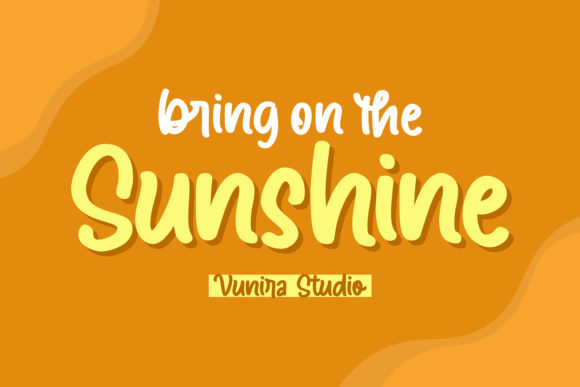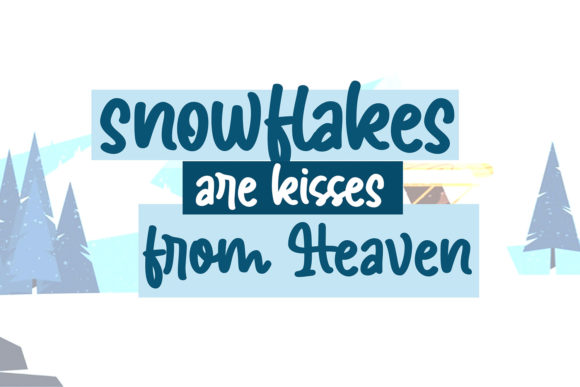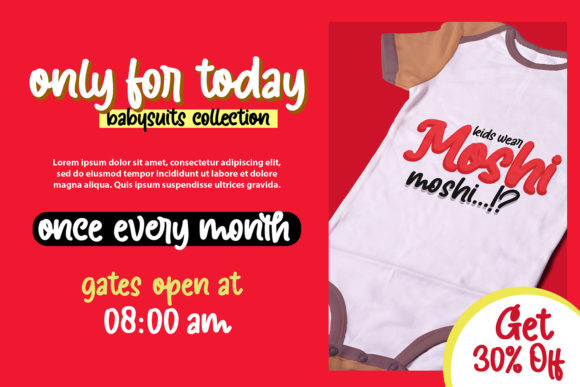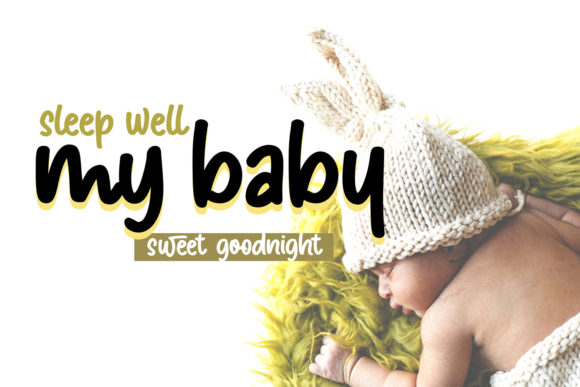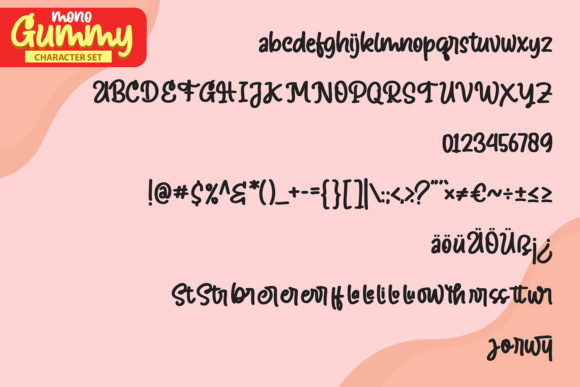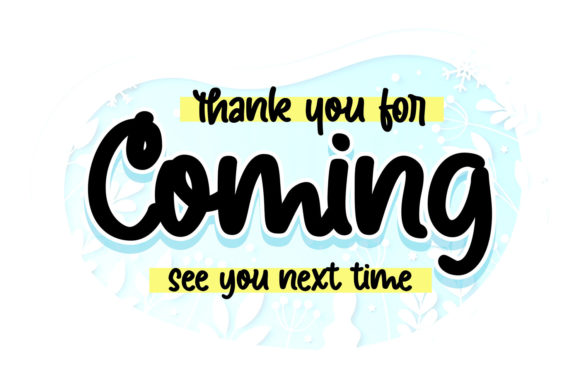
Introduction to Mono Gummy Font
Do you remember that moment when a simple design element brought your entire creative project to life? For me, it was the discovery of the Mono Gummy Font. Its playful, hand-painted style instantly added a touch of warmth and personality to my designs, making them feel more approachable and engaging.
As a designer, I know how crucial it is to have high-quality design resources at our fingertips. That’s why I’m excited to share with you the wonders of the Mono Gummy Font. With its transparent background and free download option, this font is a valuable addition to any designer’s toolkit. Whether you’re working on a children’s game, a cartoon-related design, or simply need a lovely touch for your next project, the Mono Gummy Font is an amazing choice.
So, let’s dive into the world of this delightful font and explore what makes it a standout design resource.
Key Features of Mono Gummy Font
- High-quality design resource suitable for various creative projects
- Unique, bold font style with a transparent background, perfect for modern designs
- Supports a wide range of languages and characters
- Designed with a high resolution (300 DPI) for optimal print quality
- Perfect for logos, branding, and other design elements that require a distinctive look
Honest Review: Mono Gummy Font
I recently stumbled upon the Mono Gummy Font, and I must say it’s a great addition to any designer’s toolkit. As a design resource, it’s perfect for creating unique and playful visuals for your creative projects.
- High-quality glyphs that are crisp and clear
- Transparent background, allowing for easy integration with other design elements
- Wide range of language support, making it a versatile font
- ⚠️ Limited customization options, which may not be ideal for designers who like to fine-tune their fonts
- ⚠️ Not suitable for formal or professional designs, due to its playful and whimsical nature
Overall, the Mono Gummy Font is a great choice for designers who want to add a bit of fun and personality to their projects. It’s a high-quality font that’s perfect for creating eye-catching visuals, and its transparent background makes it easy to work with. While it may have some limitations, it’s definitely a valuable addition to any design library.
The Mono Gummy Font is a high-quality, free download design resource ideal for creative projects that require a unique and playful touch. With its transparent background, this font is perfect for adding a pop of color and texture to your designs.
Tips for Getting the Most Out of Mono Gummy Font
To get the most out of the Mono Gummy Font, try combining it with other design elements, such as graphics and textures, to create a visually appealing design. Experiment with different font sizes, colors, and styles to add depth and interest to your project.
The Mono Gummy Font is ideal for use in creative projects, such as children’s books, party invitations, and social media graphics. Its playful and fun design makes it perfect for adding a touch of whimsy to your designs.
Open Sans is a sans-serif font that is highly legible, making it perfect for body text. It’s also available in multiple weights, from light to bold, which makes it versatile for various design projects. Compared to Mono Gummy Font, Open Sans is more suitable for digital interfaces and has a more modern feel.
Lato is a high-quality, free font designed by Łukasz Dziedzic. It’s a sans-serif font that is perfect for creative projects that require a clean and elegant design. You can download Lato for free and use it in your design resource. It’s ideal for websites, mobile apps, and other digital products.
Lato is a highly legible font that is available in multiple weights, from light to bold. It’s a great choice for body text and titles alike. Compared to Mono Gummy Font, Lato has a more elegant feel and is more suitable for formal design projects.